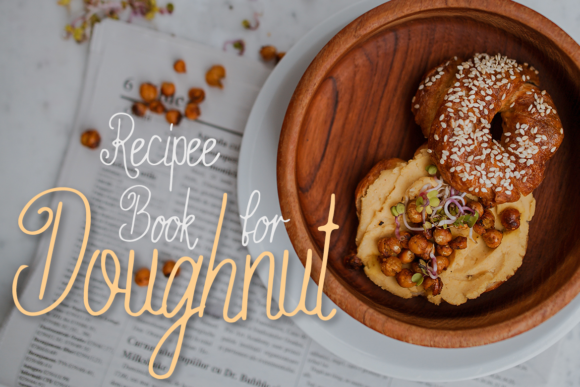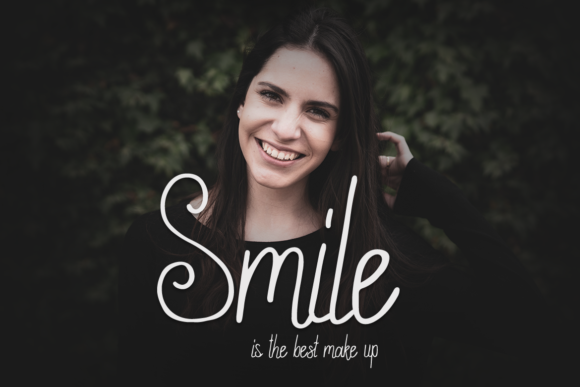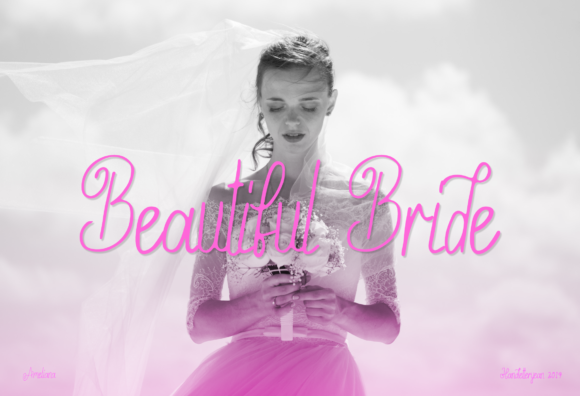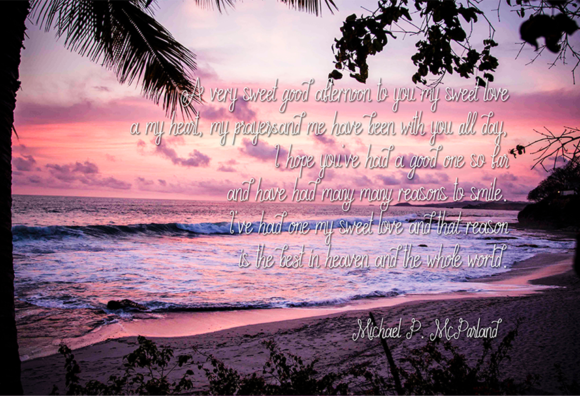
The Ameliana Font: A Handwritten Gem for Your Designs
I’ll never forget the time I was working on a project for a client who wanted a natural, earthy feel for their branding. I had spent hours scouring the internet for the perfect font, but nothing seemed quite right. That was until I stumbled upon the Ameliana font. It was love at first sight! ✨ The elegant, flowing script seemed to dance across the page, and I knew immediately that it was the perfect fit for my client’s project.
An Honest Review of Ameliana
- ✅ Readability: The Ameliana font has exceptional readability, making it perfect for body text or headings.
- ✨ Natural Look: The handwritten style gives your designs a warm, organic feel that’s hard to achieve with more traditional fonts.
- 🎨 Versatility: Ameliana can be used for a wide range of projects, from branding and advertising to packaging and digital media.
While Ameliana is an amazing font, there are a few things to keep in mind: ⚠️
- 🤔 Limited use in very small sizes: As with many handwritten fonts, Ameliana can become a bit tricky to read in very small sizes.
- ⚠️ Kerning issues: Some users have reported kerning issues when using Ameliana in certain design programs.
The Story Behind Ameliana
Ameliana was designed by a talented typographer who wanted to create a font that captured the elegance and sophistication of handwritten script. Inspired by the flowing curves of copperplate calligraphy, Ameliana is a modern take on a classic style.
Q: What is the Ameliana font?
A: Ameliana is a beautiful handwritten font with a natural, elegant feel.
Q: Is Ameliana suitable for body text?
A: Yes, Ameliana has great readability and can be used for body text, but it may be more suitable for headings or titles.